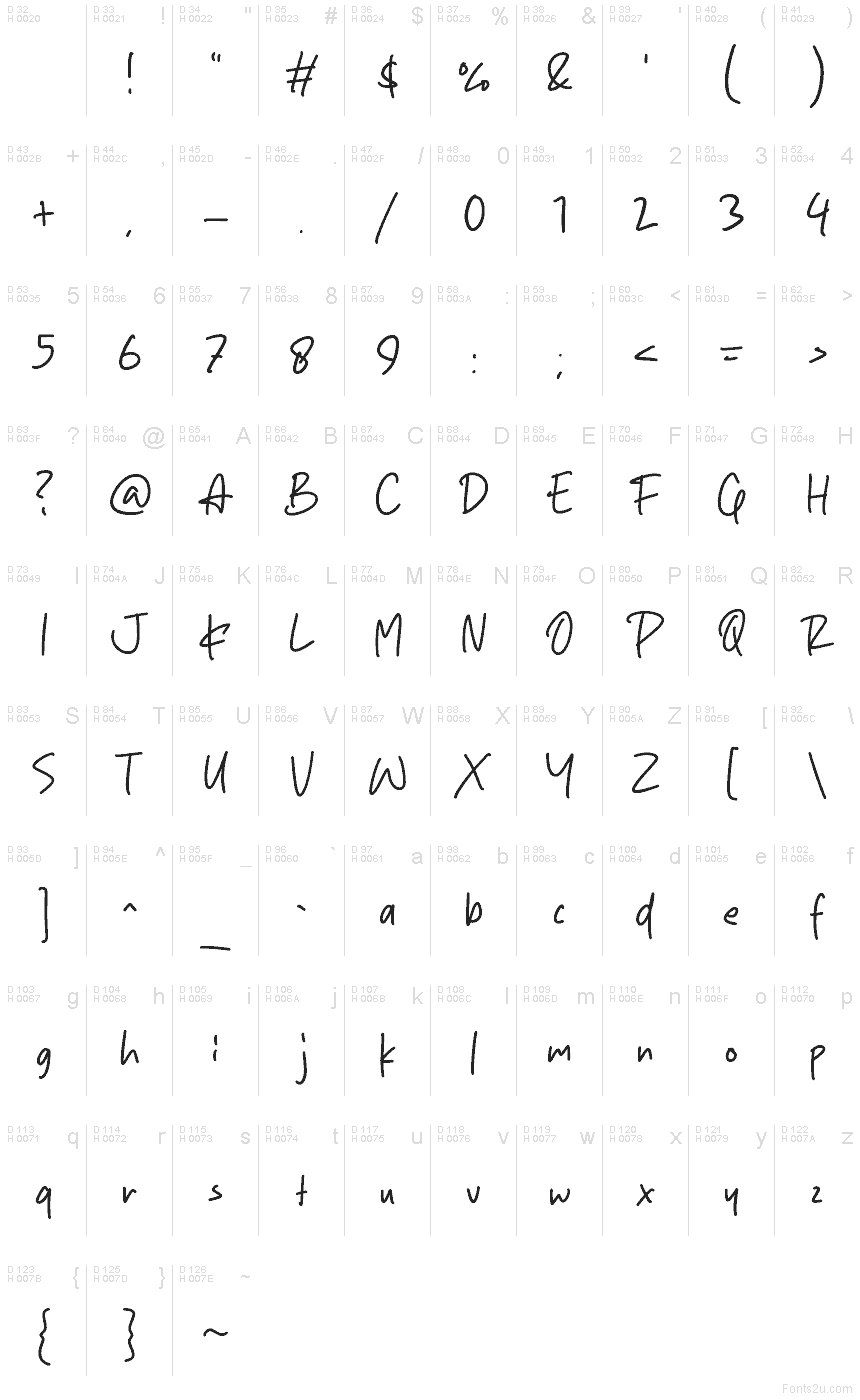
Blink Script
Blink Script font by MJType brings a lively, handwritten appearance with an expressive style that feels approachable and artistic. This casual font features signature-style letters with cursive connections which make it stands out distinctly from classic script typefaces. Use this free handwritten font to give your ideas, both personal and professional, a unique feel that attracts the target audience.
This Blink Script works great for specifications headings, magazines, greeting cards, comics, photography signatures, quotes design apps and posters design in addition to logos and brand typography. The beautiful letters aren’t any less effective on book covers or invitations such as wedding cards.